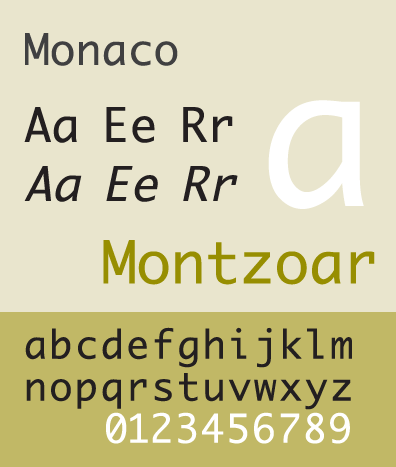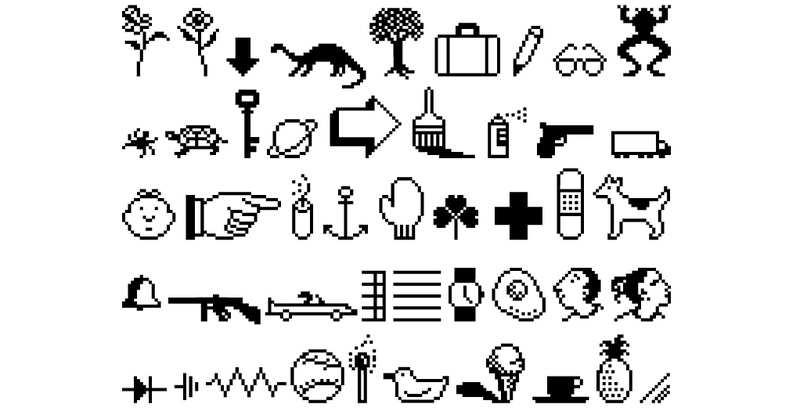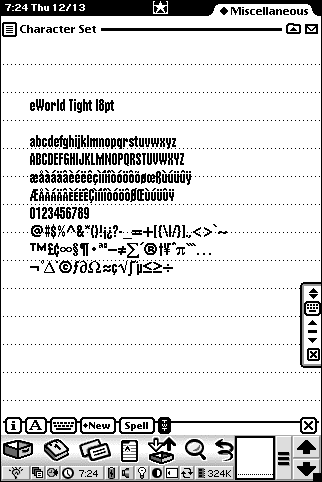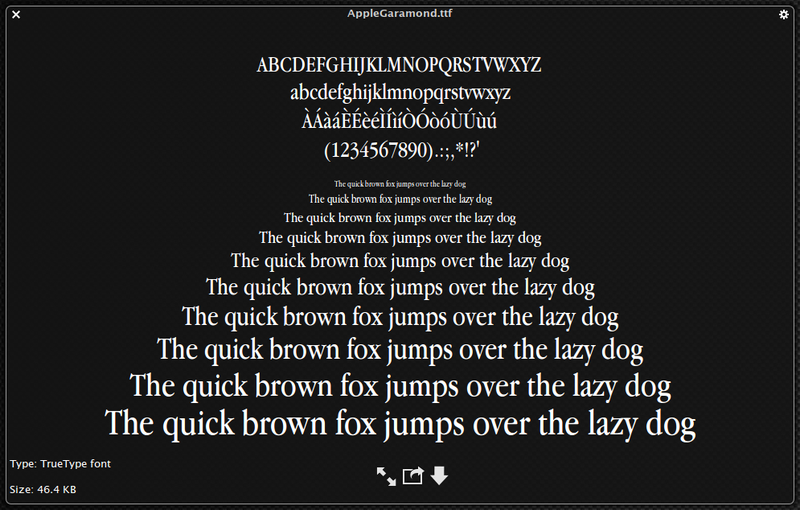
​Apple’s Homemade Fonts, Ranked
Apple recently debuted one of its first in-house fonts in nearly 20 years. The tech company’s most frequently-used typefaces now are Myriad, Lucida Grande, Avenir, and Helvetica Neu, all brought in from third parties. But in its early days, graphic designers like Susan Kare helped Apple stand apart from competitors by designing original fonts.
Many of these fonts remain iconic. Others make Comic Sans look respectable, which, to my knowledge, is the most devastating diss you can give a font. Here, they are ranked:
18. Last Resort
You can only see this if you can’t see what you’re supposed to see, so last place goes to a font that works when something’s broken.
17. Fancy
Designed for the Apple Newton, Fancy is a Times New Roman ripoff that no one cares about. I couldn’t even find images of it.
16. Los Angeles
Even Susan Kare can’t save fonts styled to look like handwriting. If the Los Angeles font has any ideal use case, it’d probably be on a casual dinner party invitation for a soiree thrown by Hoda Kotb, though that honestly makes it sound cooler than it is.
15. San Francisco (2014)
Eh. I’m glad Apple went for legibility for the custom font for its upcoming Apple Watch, but they couldn’t get much more boring than this if they put on some contemporary adult pop and ate a piece of unadorned slightly burnt toast while staring at a blank plywood wall. They didn’t even bother coming up with an original name.
14. San Francisco (1984)
This kooky-ass ransom note font would be unbearably annoying if people actually used it with regularity.
13. London
No one really wants a faux-old-timey font except really corny history teachers and Medieval LARPing newsletter publishers.
12. Toronto
It’s a shame that this was one of the first fonts Apple ditched, because the rounded serif typeface, with its big O’s and curvy little t’s, is pleasantly quirky, but a little childish to use as a default.
11. Geneva
Serviceable but unexciting. Geneva is like the Chris Hemsworth of fonts. Attractive, sure, but in a generic, bland People magazine way.
10. Venice
See London, although this calligraphic font has a little more originality.
9. Athens
I honestly can’t sum up any feelings on Athens one way or the other and it’s hard to find it in its original form—what you see above is a recreation—so it will go smack in the middle.
8. New York
A pretty serif font, New York is easy on the eyes, but also too similar to Times New Roman to get worked up about. New York is probably downloaded most frequently now because you need it on your computer to play copies of Oregon Trail.
7. Monaco
Monaco is clean, easy-to-read, and each character is distinct. I like how the parenthesis are so rounded. I don’t like the mono spacing but we can’t all be perfect. You’re doing OK, Monaco.
6. Menlo
A Vera Sans knockoff, but a pretty Vera Sans knockoff. This font somehow conveys intelligence, which I know is an insane thing to say, but I feel like this font has at the least a graduate degree and has seriously considered pursuing a life in academia. Its parents are proud but sometimes after Daddy Menlo has too many Budweisers he’ll confess that he’s worried about how Menlo will support a family.
5. Espy Sans
This bitmapped 1993 font will always remind me of the iPod Mini…because it was last frequently seen on the iPod Mini. The iPod Mini was superior to the Nano and the FOOLISH Shuffle, and like the iPod Mini, Apple has not been as kind to Espy Sans at it should have been. Yes, it’s a jagged bitmap font, but there’s something pleasing about it. It’s like a messier version of the Chicago font.
4. eWorld Tight
This is the best name for a font ever. The typeface itself was only used for titles in Apple’s eWorld but I don’t care.
I also like to imagine there’s a font called eWorld Loose out there and everybody just HATES it. “Get outta here, you loose piece of shit!” is what they all say on the rough streets of eWorld. Keep it tight baby.
Image: Grant Hutchinson/CC.
3. Cairo
Susan Kare named most of her Apple fonts after world class cities, and she chose Cairo as the name for her set of glyphs, probably as a reference to the hieroglyphics used in ancient Egypt. Clever name, excellent font. A more sophisticated set of Wing Dings. Wing Dings were the emojis of the 90s. Cairo is fucking awesome. Unfortunately, Apple ditched it way back in 1987, so many people only got to experience this set of quirky symbols if they used Kid Pix, the Mac’s old drawing program.
Dogcow forever.
2. Apple Garamond
Barely an Apple font but for the custom size and hinting, but you know what? It’s far from the most original, but it’s a beautiful twist on a traditional typeface and I love it. Apple used Apple Garamond so aggressively in marketing campaigns that it became associated with the brand, even though the original version of Garamond is well over 400 years old. Android fans will be glad to know there’s evidence of Apple bogarting recognition for something someone else did first in the world of typography. Apple fans will be glad to know Apple’s take on the classic font is possibly its most elegant mutation.